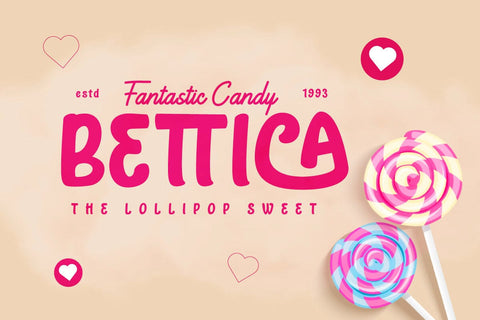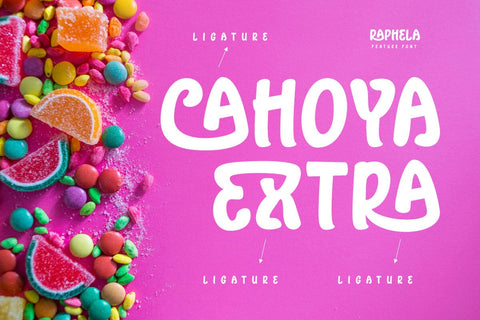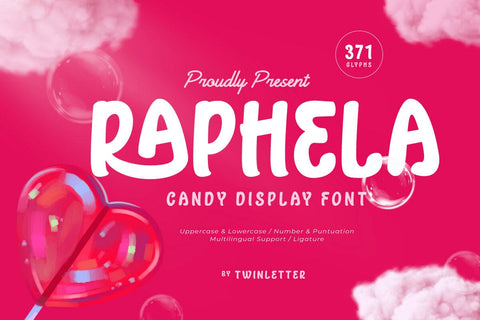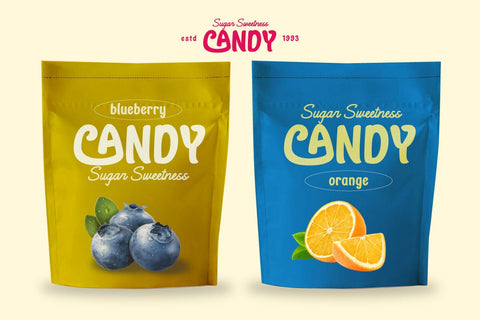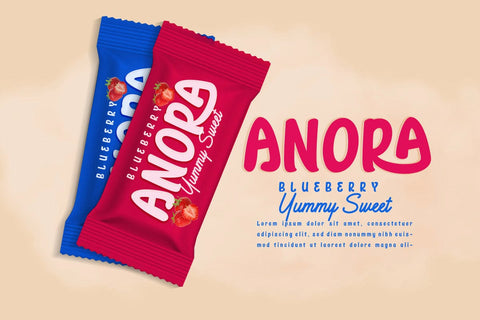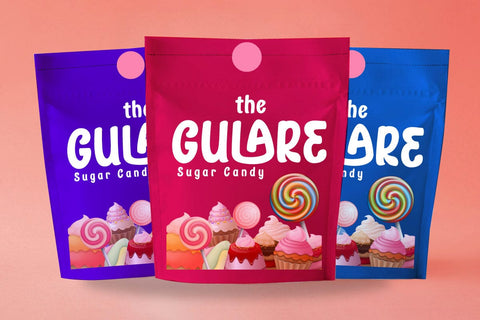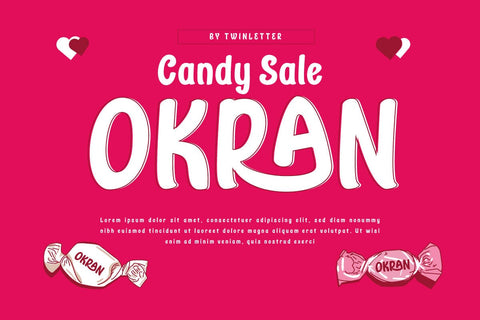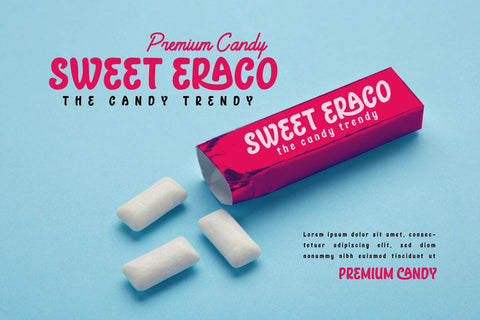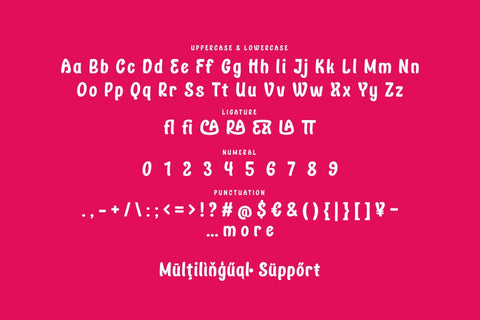
Raphela - Display Font
Sweeten your designs with Raphela, a Candy Display Font that bursts with playful charm and vibrant energy. Ideal for candy shops, children's books, party invitations, and festive packaging, Raphela features bold, rounded letters that capture the fun and excitement of a candy wonderland. Each character is designed with a touch of whimsy and a sprinkle of joy, making your text look deliciously delightful.
The bright and cheerful style of Raphela brings a sense of fun to any project, making it perfect for creating eye-catching posters, colorful product labels, and engaging social media content. With its unique candy-inspired design, Raphela ensures your messages are not only seen but also remembered. Add a dose of sweetness and excitement to your creative work with Raphela, the ultimate font for all things fun and festive.